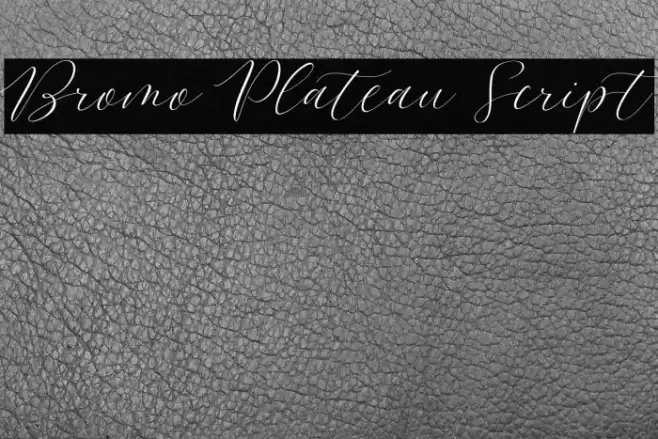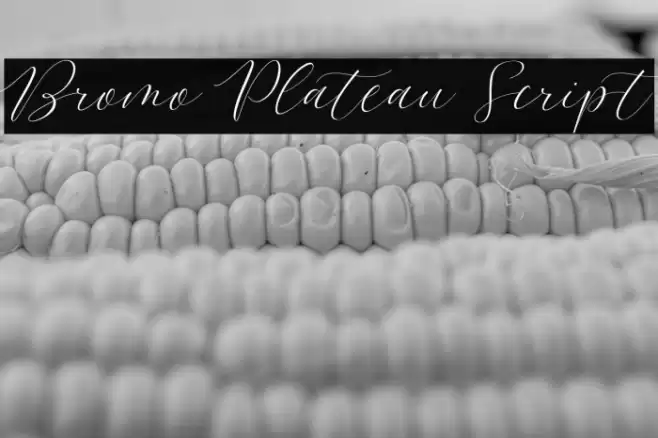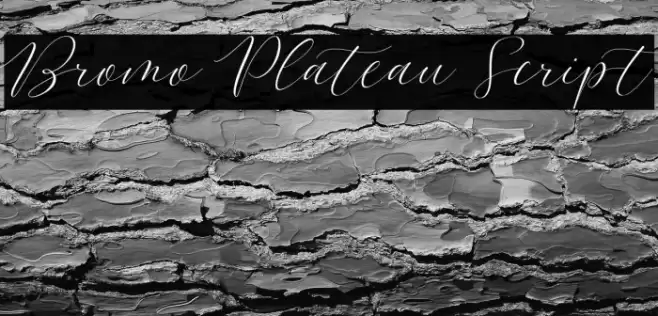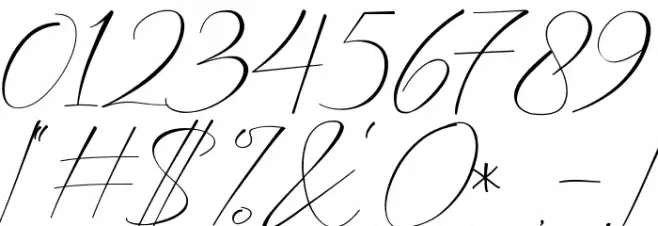
Bromo Plateau Script Font
Bromo Plateau Script Description
This elegant script font features fluid, cursive strokes that convey a sense of sophistication and grace. The characters are connected seamlessly, creating a flowing and harmonious appearance. The uppercase letters are slightly more ornate, with extended flourishes that add a touch of drama. The lowercase letters maintain a consistent slant, enhancing the overall fluidity. Numbers and special characters are designed with the same attention to detail, ensuring a cohesive look across all elements. The font's delicate lines and high contrast between thick and thin strokes make it ideal for formal invitations, branding, and decorative purposes.
An elegant script font with fluid, cursive strokes and high contrast from Regular fonts.
- Proposed Projects: Ideal for wedding invitations, luxury branding, and decorative headings.
- Overall Style: Elegant
- Use Case: Headlines, Invitations, Branding